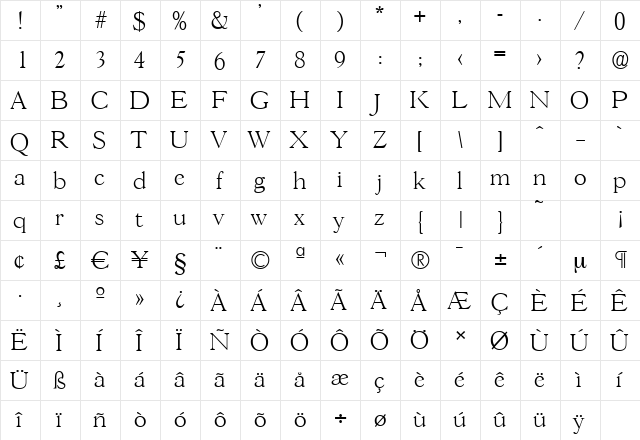
GascogneSerial-Xlight Regular Font Preview
GascogneSerial-Xlight Regular
GascogneSerial-Xlight Regular Font Details
Design Context for GascogneSerial-Xlight Typeface
GascogneSerial-Xlight is a composed and adaptable typeface that performs quietly and consistently across a wide range of design contexts. The delicate stroke weight brings airiness and refinement to layouts.